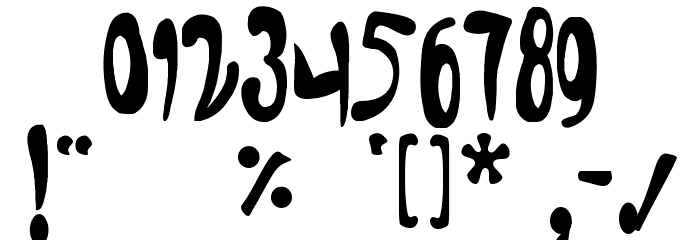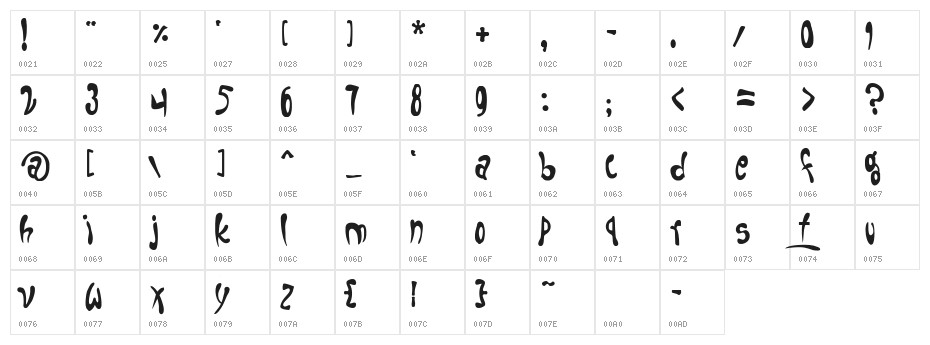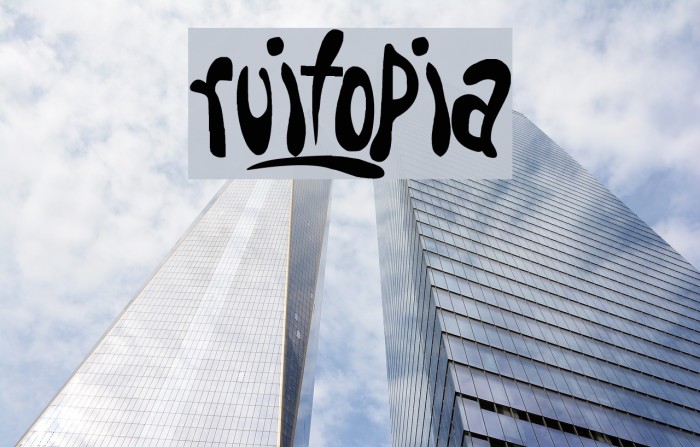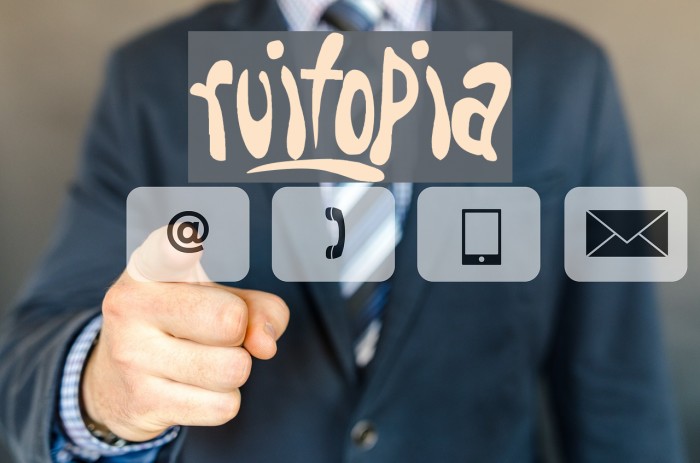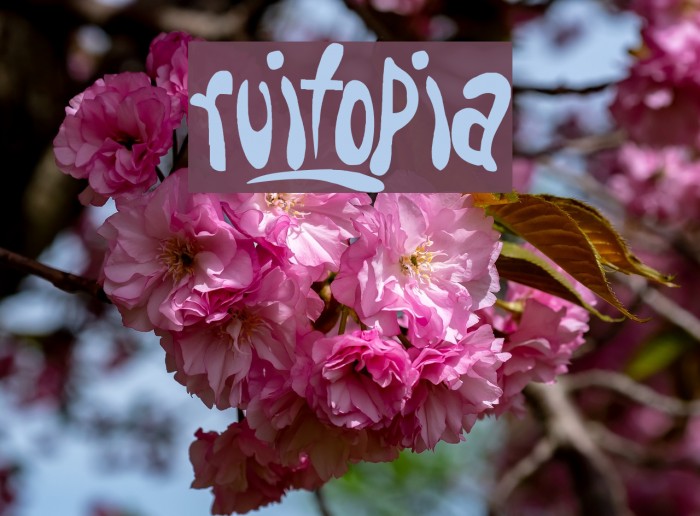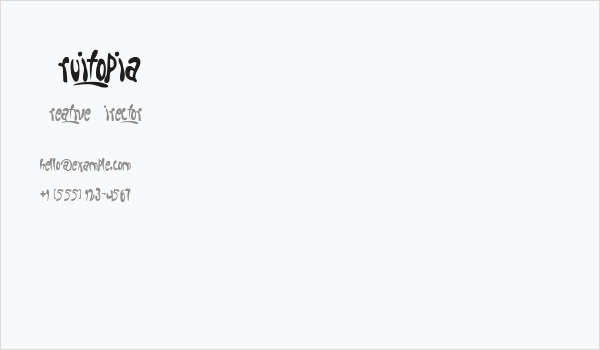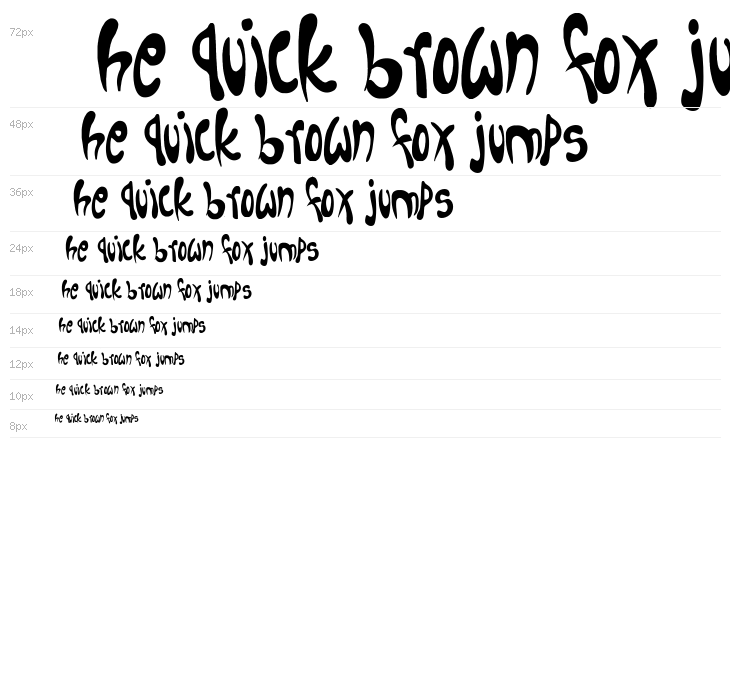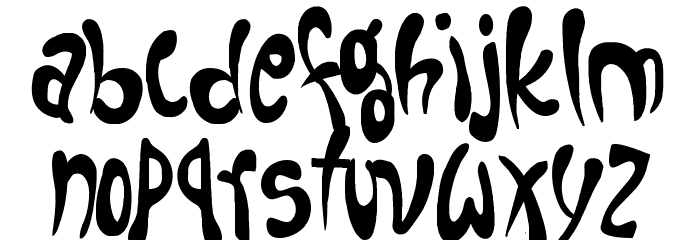
Fruitopia Font
Fruitopia Description
This playful and whimsical font features a hand-drawn style with bold, rounded characters. The letters have a unique, organic flow, giving them a lively and energetic appearance. The uppercase and lowercase letters are distinct yet harmonious, with a slightly irregular baseline that adds to the font's charm. The numerals and special characters maintain the same playful aesthetic, making them suitable for creative and informal designs. The font's thick strokes and rounded edges contribute to its friendly and approachable feel, making it ideal for projects that aim to convey fun and creativity.
| Proposed Projects | Ideal for children's books, playful branding, creative posters, and informal invitations. |